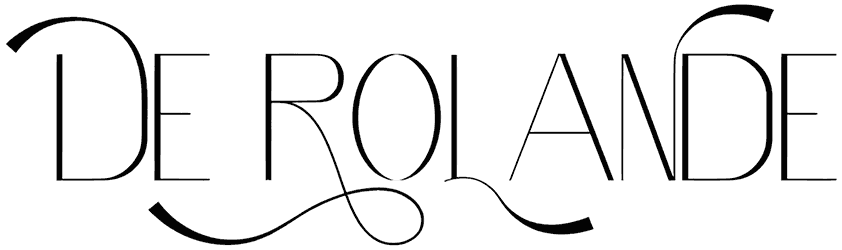
De Rolande Font
De Rolande font is one of those sans serif picks that looks simple at first, then quietly starts doing the expensive work. The clean structure, soft curves, and neat modern spacing make it feel polished without becoming cold, which is exactly what you need when a brand wants to look fresh but still approachable.
Use this luxury font for skincare labels, studio logos, café menus, fashion lookbooks, website headers, or minimalist social posts that need a steady visual voice. Pair De Rolande font with cream backgrounds, sharp photography, and one elegant accent color, and your layout suddenly behaves like it has a full branding team behind it.